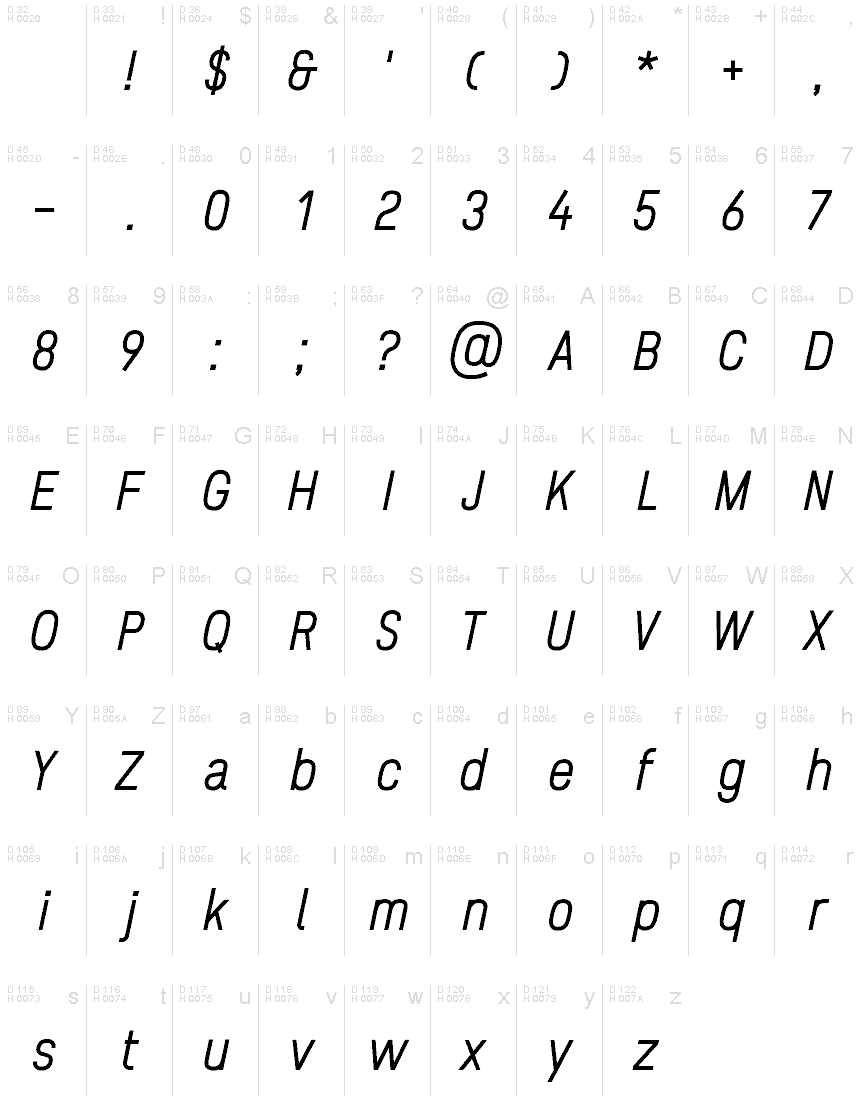
ZF2334 Squarish Italic
ZF2334 Squarish Italic font by Salim Zouaghi is an entirely eye-catching and legible creation. The medium-condensed sans serif comes in a modern, geometric, minimalist build with contemporary influences and unusual letter forms. Each glyph is consistent, clean, and technical for highly readable designs.
It perfectly suits editorial designs like books and magazines where maximum readability is required. It can also be used for display purposes in signage design, posters, branding projects such as logos or even visual identity products or web UI/UX work where a modern appeal is needed.